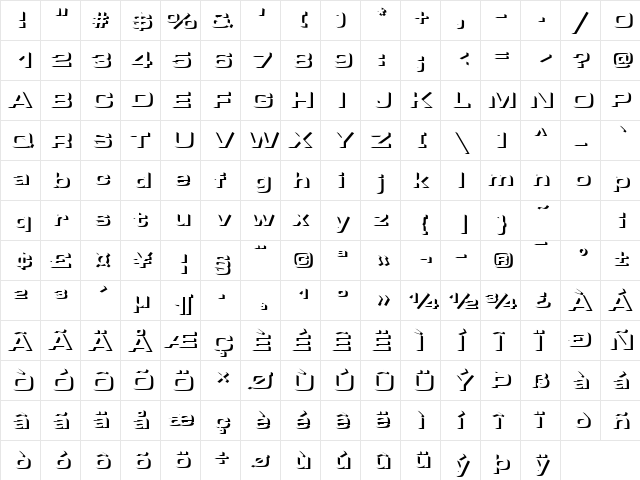
Microgramma Becker Only Shadow Regular
Design Context for Microgramma Becker Only Shadow Typeface
Microgramma Becker Only Shadow is built around its visual character rather than neutral utility — its distinctive forms are designed to make an impression at display sizes.
Font Pairing: Pair with a clean neutral sans-serif for body copy to let Microgramma Becker Only Shadow's character lead without overwhelming the composition.
Pro Tip: Treat Microgramma Becker Only Shadow as the centrepiece of your typographic hierarchy. One strong heading set in a decorative face can carry an entire layout.